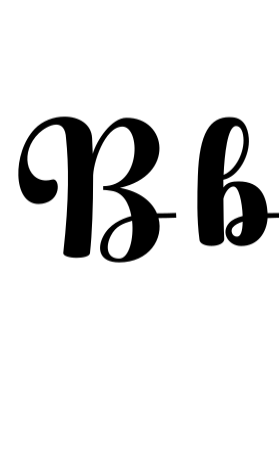
Introducing Black Super Font: The Ultimate Handwritten Font for Creative Designs
In the world of typography, fonts play a crucial role in conveying the tone and personality of a design project. Among the numerous fonts available, Black Super Font stands out for its unique blend of warmth, playfulness, and classiness. This handwritten font is designed to bring a fun and on-trend touch to various design projects, including wedding invitations, greeting cards, and more. In this article, we’ll explore the features and benefits of Black Super Font and why it’s an excellent choice for designers and artists looking to create a lasting impression.
What Makes Black Super Font Special?
Black Super Font is a handwritten font that exudes an irresistible warmth, making it perfect for designs that require a personal touch. Its unique characteristics include:
- Handwritten style: Black Super Font is a carefully crafted handwritten font that mimics the natural flow of handwriting, giving it a friendly and approachable feel.
- Playful yet classy: This font strikes the perfect balance between playfulness and sophistication, making it suitable for a wide range of design projects.
- Warm and inviting: Black Super Font has a warm and inviting tone that easily connects with the audience and communicates the nuances of your artistic vision.
Design Applications for Black Super Font
Black Super Font is a versatile font that can be used in various design projects, including:
- Wedding invitations: Add a touch of elegance and playfulness to your wedding invitations with Black Super Font.
- Greeting cards: Create personalized and heartfelt greeting cards for special occasions using this font.
- Branding and packaging: Use Black Super Font to add a friendly and approachable tone to your brand’s packaging and marketing materials.
- Social media graphics: Create engaging social media graphics that stand out with Black Super Font.
Typography Tips for Using Black Super Font
To get the most out of Black Super Font, consider the following typography tips:
- Pair with contrasting fonts: Pair Black Super Font with contrasting fonts to create visual interest and hierarchy in your design.
- Experiment with font sizes: Play with different font sizes to create emphasis and add depth to your design.
- Use font variations: Use font variations, such as bold and italic, to add texture and visual interest to your design.
Benefits of Using Black Super Font
Black Super Font offers several benefits to designers and artists, including:
- Unique and creative: Black Super Font is a unique and creative font that can help you stand out from the crowd.
- Easy to read: Despite its playful nature, Black Super Font is easy to read and understand, making it perfect for designs that require clear communication.
- Versatile: Black Super Font can be used in various design projects, from wedding invitations to branding and packaging.
Inspiration and Ideas for Using Black Super Font
Here are some inspiration and ideas for using Black Super Font:
- Create a handmade feel: Use Black Super Font to create a handmade feel in your designs, perfect for crafty and DIY projects.
- Add a personal touch: Add a personal touch to your designs with Black Super Font, making them more relatable and engaging.
- Experiment with colors: Experiment with different colors and textures to add depth and visual interest to your designs.
In conclusion, Black Super Font is a unique and creative handwritten font that can add a touch of warmth and playfulness to your designs. Its versatility and ease of use make it perfect for various design projects, from wedding invitations to branding and packaging. With its ability to convey a friendly and approachable tone, Black Super Font is an excellent choice for designers and artists looking to create a lasting impression.